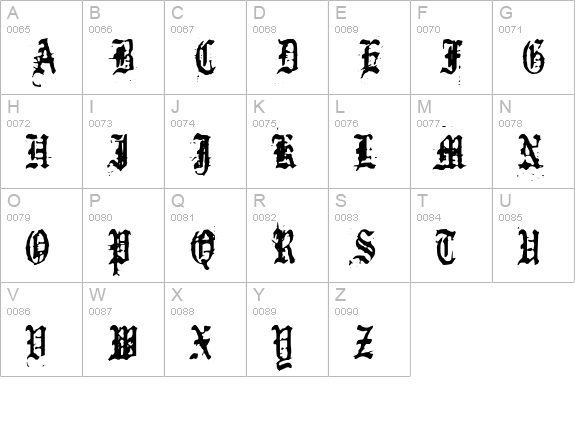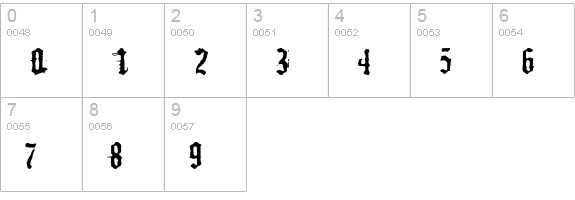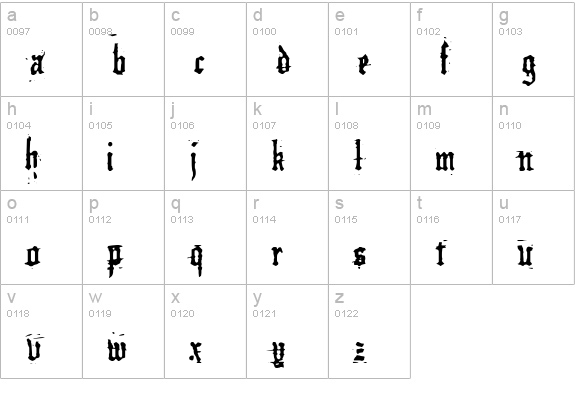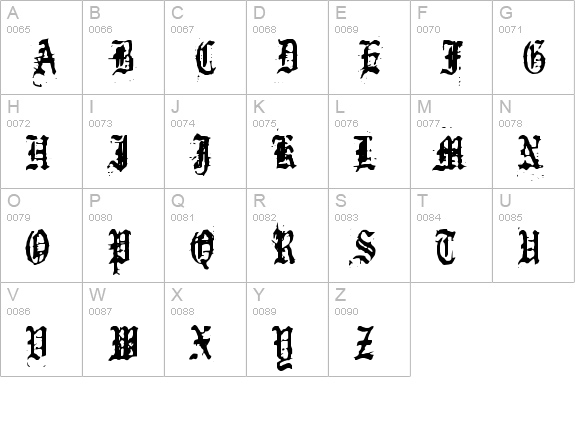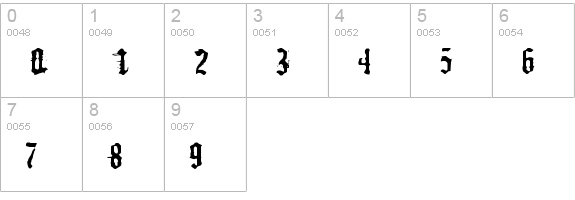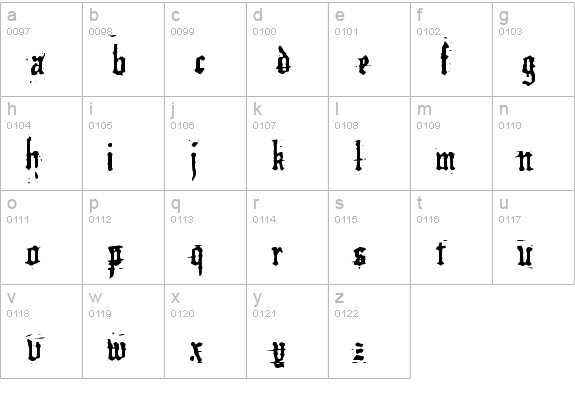
German Underground font is a bold and impactful typeface inspired by the industrial design elements of underground tunnels in Germany. Its sharp lines and sturdy construction evoke a sense of strength and reliability, making it an ideal choice for projects that require a strong and commanding presence. The font's unique character sets it apart from traditional typefaces, giving your designs a modern and edgy feel. The best part? German Underground font is available for free download at FontsMarket.com, making it easily accessible for designers and creatives looking to add a touch of German industrial flair to their projects. Don't miss out on this opportunity to incorporate this striking font into your designs and make a bold statement with German Underground.